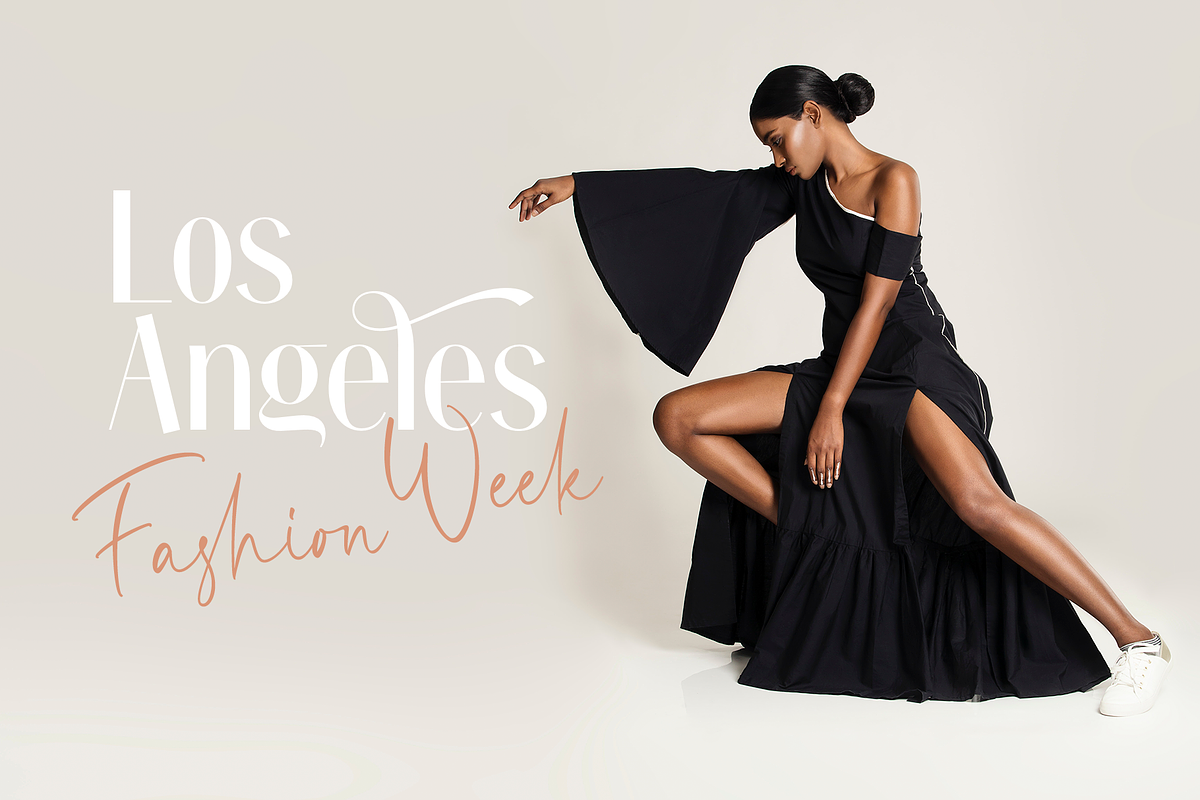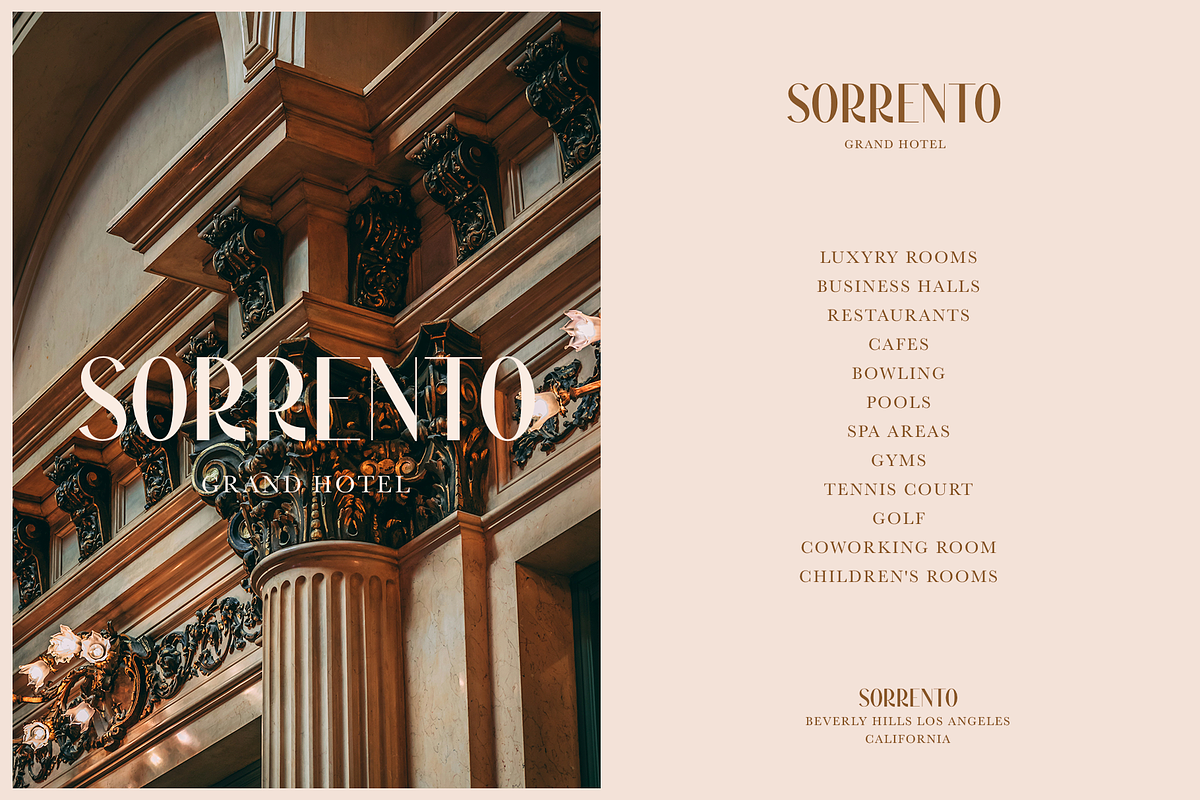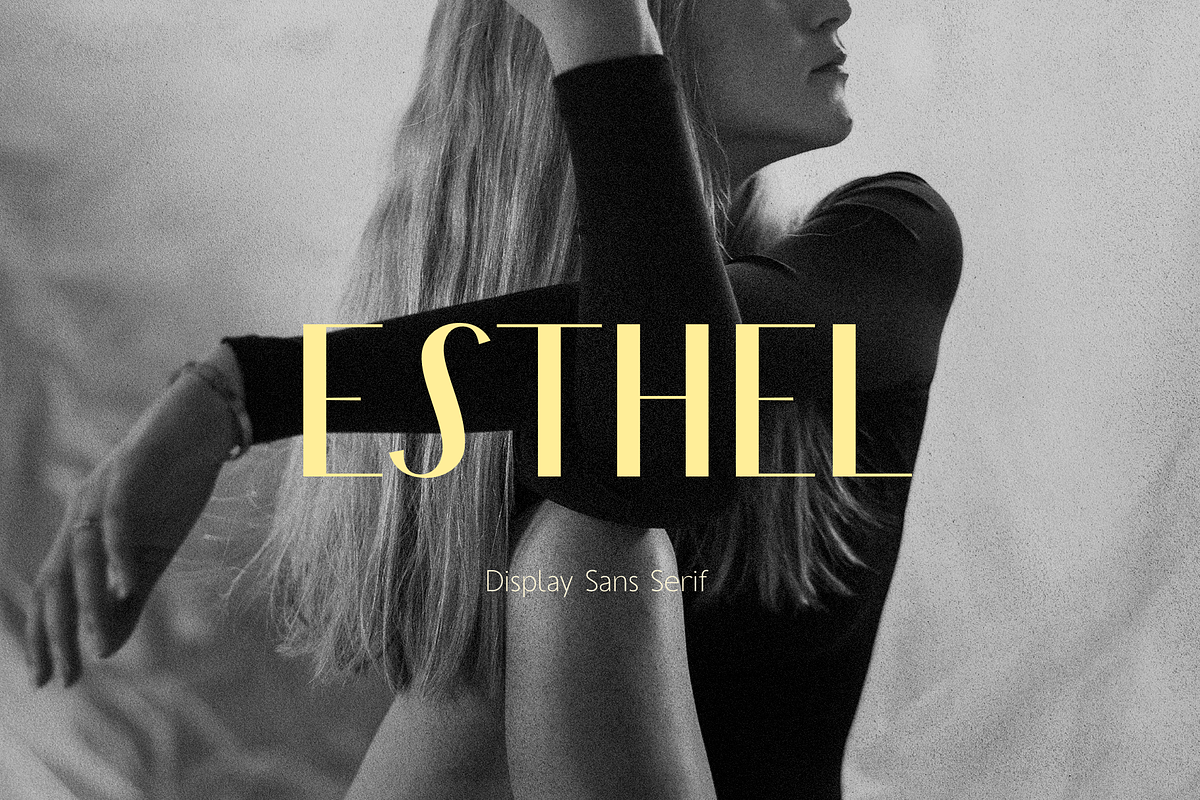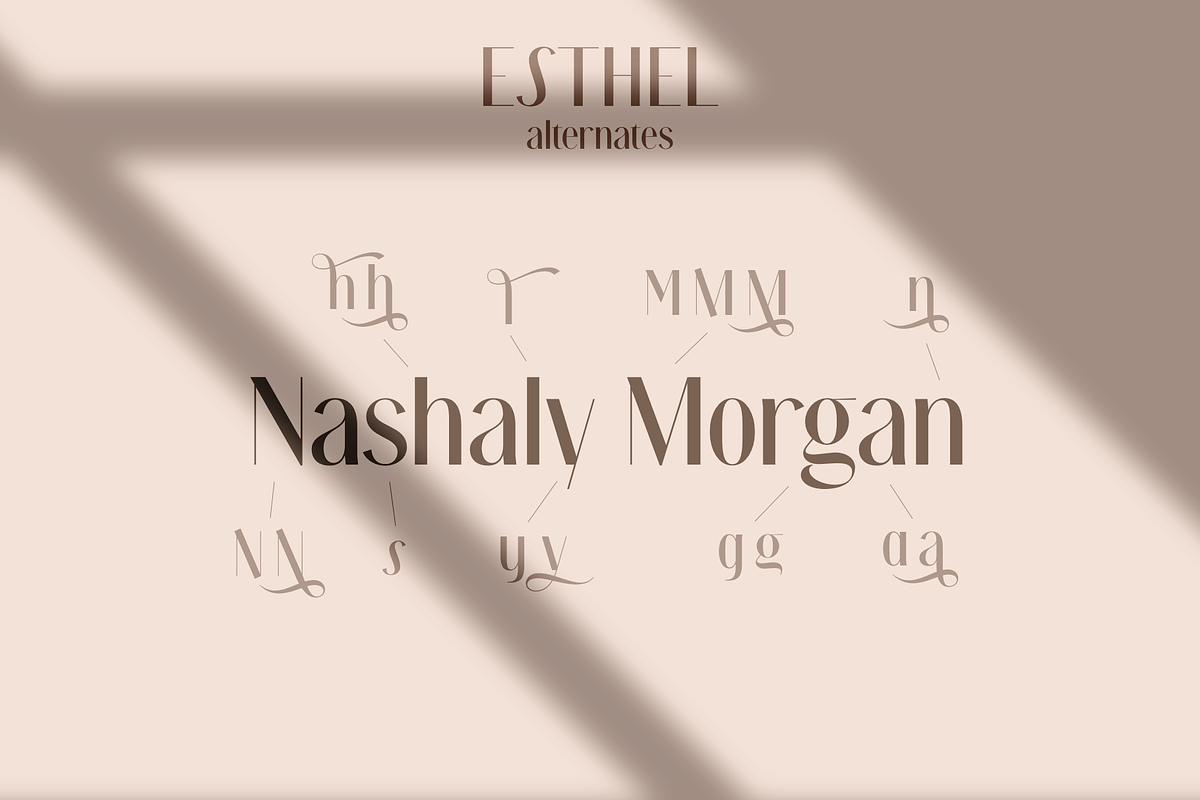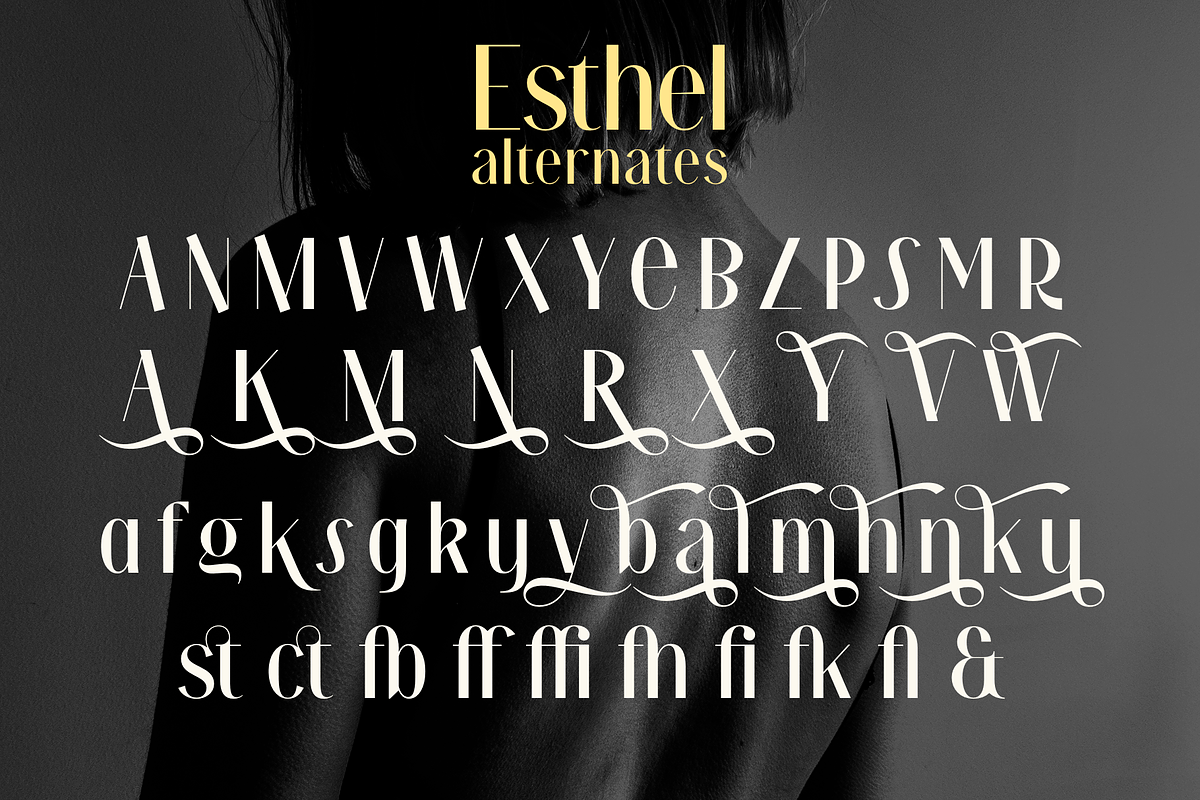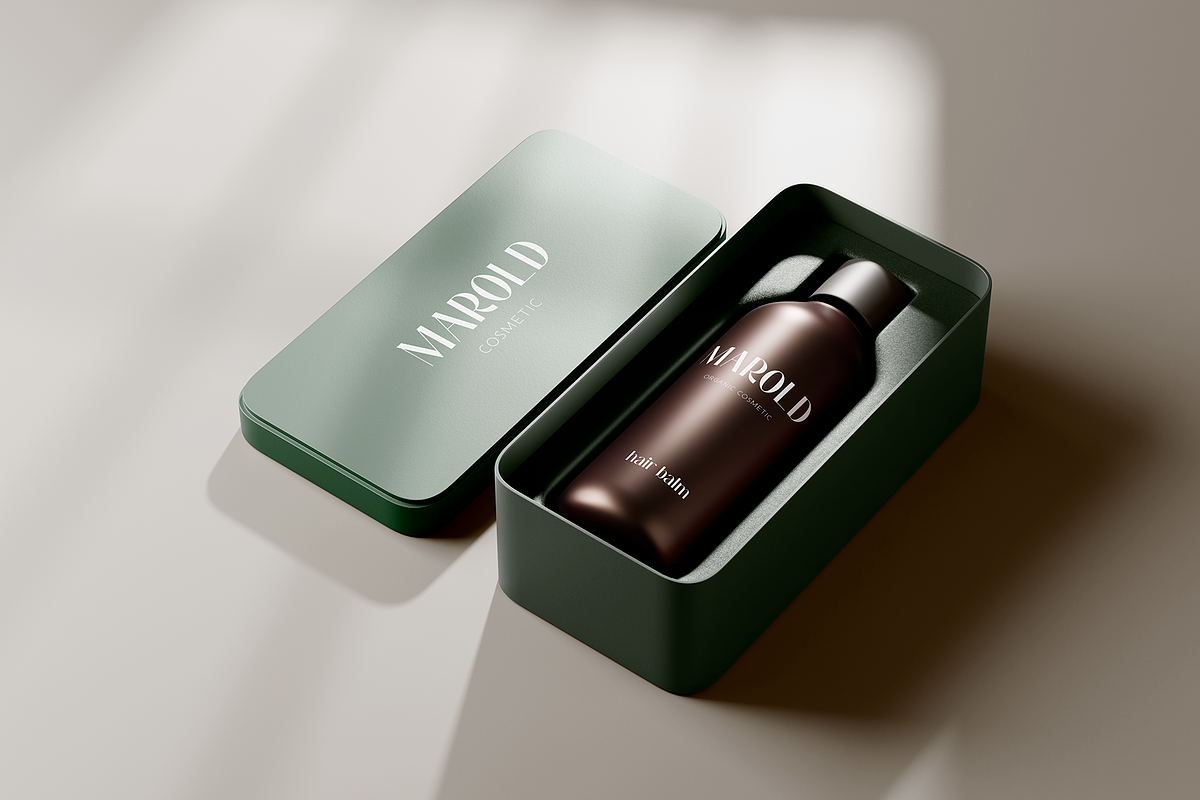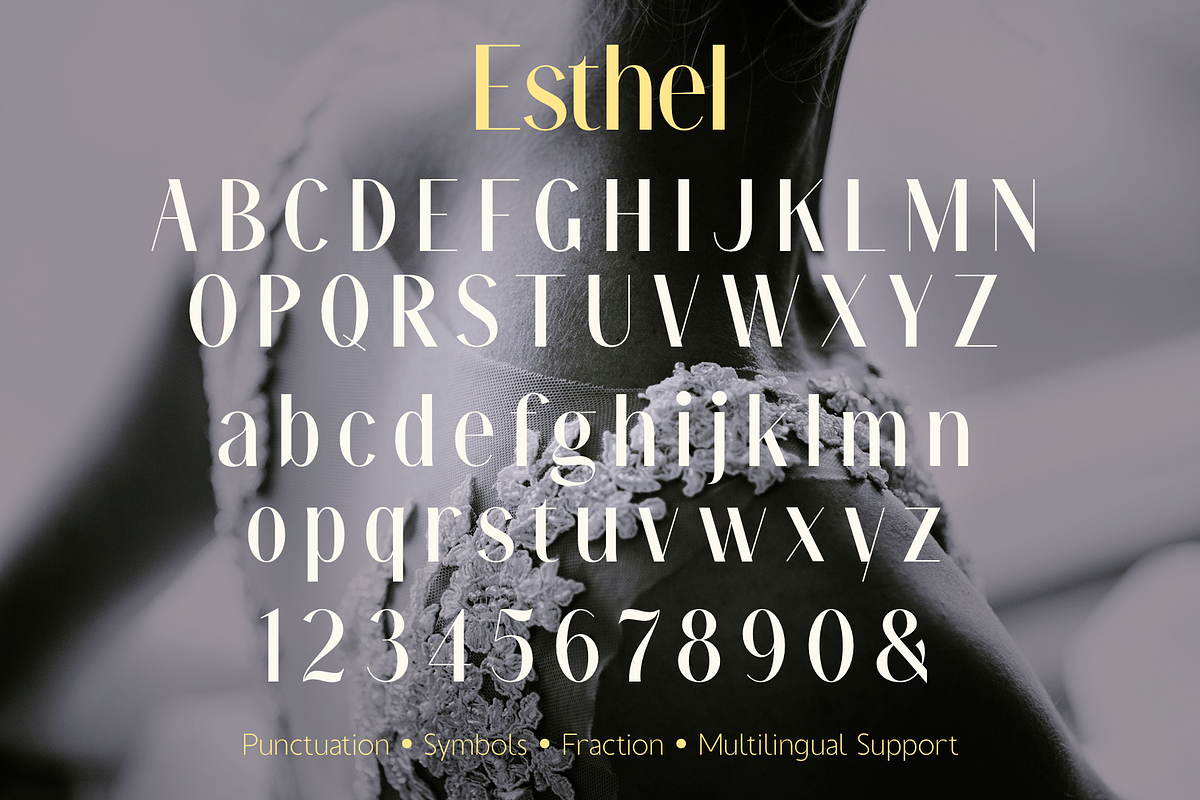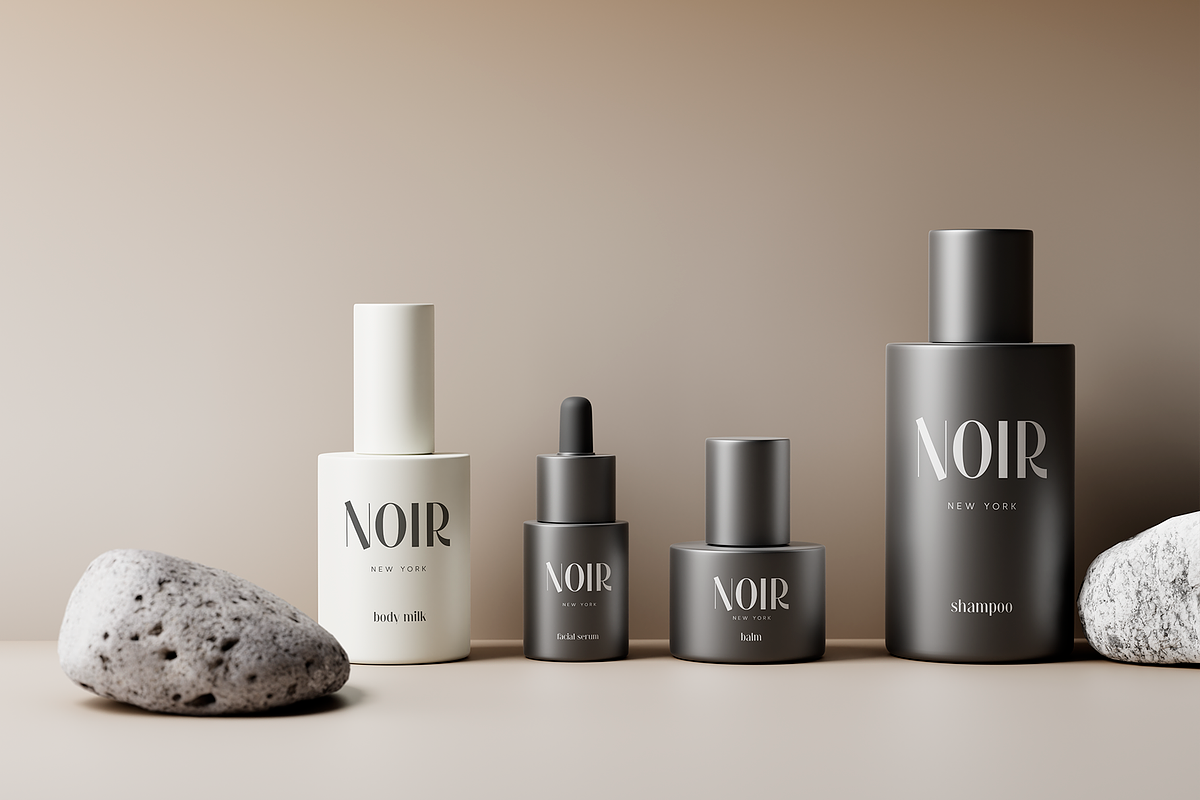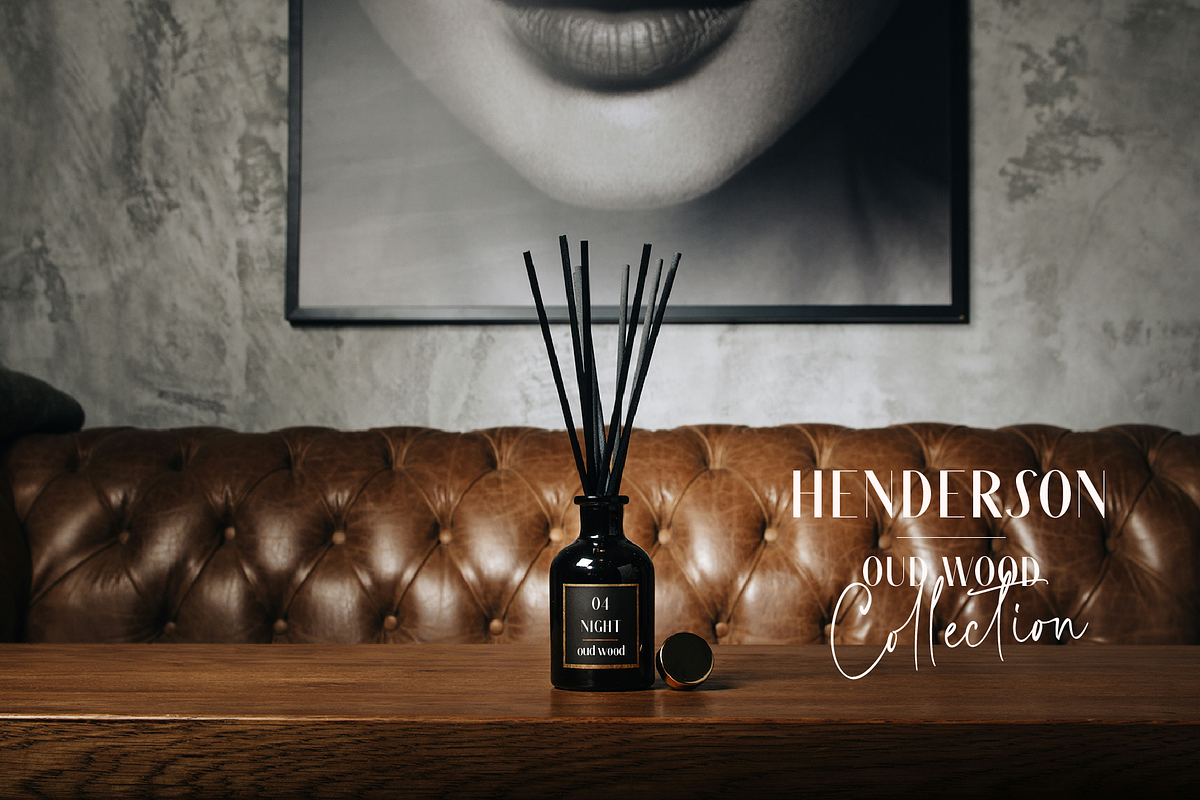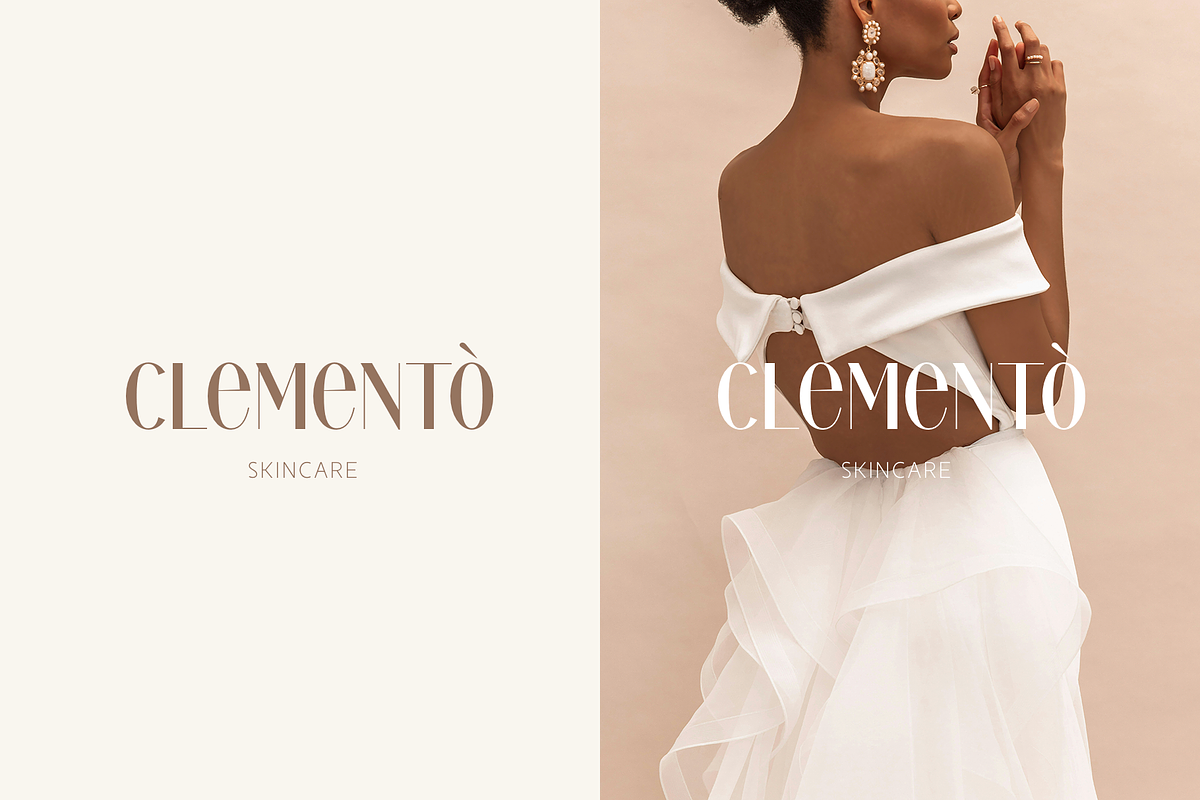
Esthel
Esthel this is an elegant glossy font that is executed in a large size and has a high contrast, this font includes stylistic alternatives for upper and lower case as well as standard ligatures. With it, you can create logos, banners, use in advertising, packaging, books covers and magazines, headings, descriptions and much more.
Full alphabet with Uppercase and Lowercase A-z
Numbers, fractions
Punctuation and symbols
Alternates for Uppercase and Lowercase